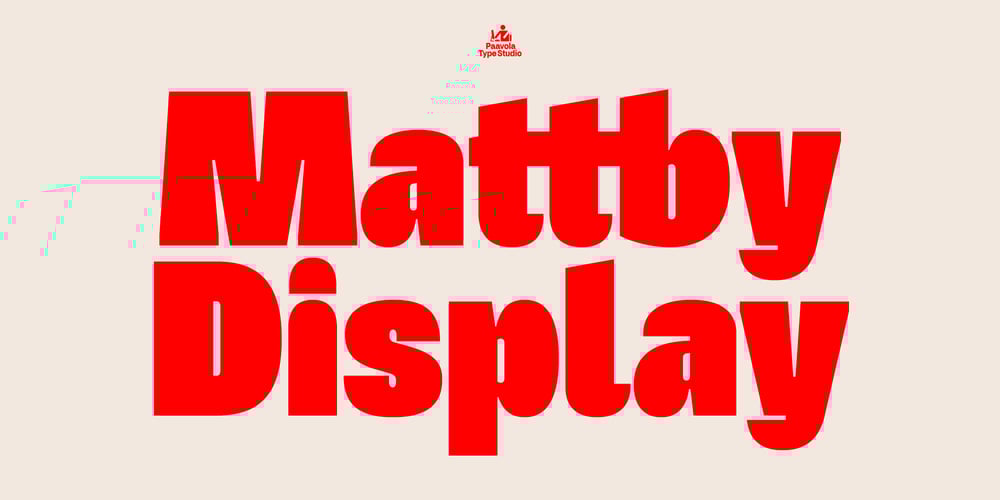
Mattby Display Font Family was designed by Jani Paavola and published by Paavola Type Studio. Mattby Display contains 2 styles and family package options. Stocky, beefy, dumpy, heavyset, husky, rotund, stubby, thick-bodied, thickset and fun display font with lots of ligatures, stylistic alternates and other features.